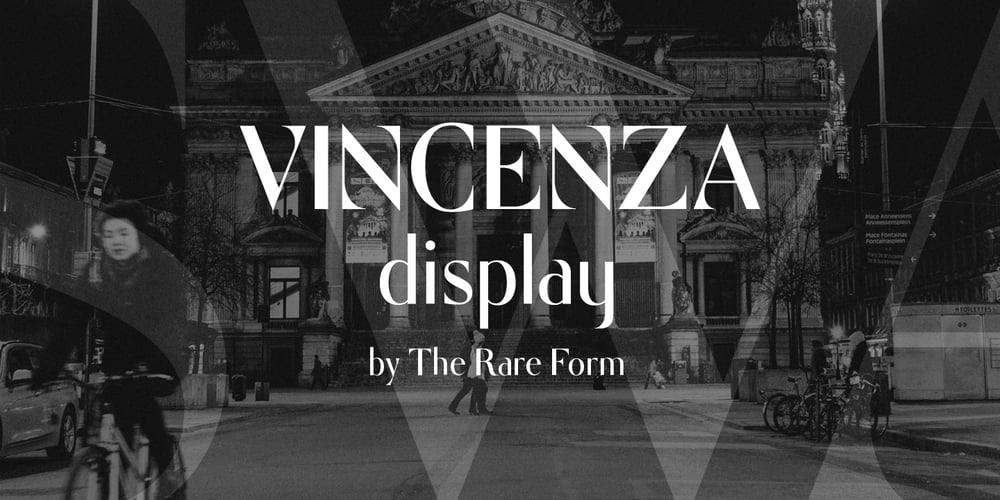
Vincenza Display Font Family was designed by Kyle R Thompson and published by The Rare Form. Vincenza Display contains 1 styles and family package options. Vincenza Display is a modern high-contrast semi-sans with sharp edges and sleek curves. A distinctive typeface for exquisite headlines. Winner, Gold Award, Graphis 2018 Typography 4. http://www.graphis.com/entry/f6b469fe-c5d3-4bea-87e3-796c1d727b3c/ We felt there was a missing in the world of fashion-forward high-contrast typefaces, so we created Vincenza Display. Based loosely on the proportions of Bodoni, Vincenza features stylized curved descenders and unique semi-serifs, bringing a bold and distinct look to your headlines. The typeface has several alternates and ligatures, and is spaced for all caps as well as sentence case executions. It also contains a robust number of special characters. Vincenza Display is the debut typeface from the team at The Rare Form.